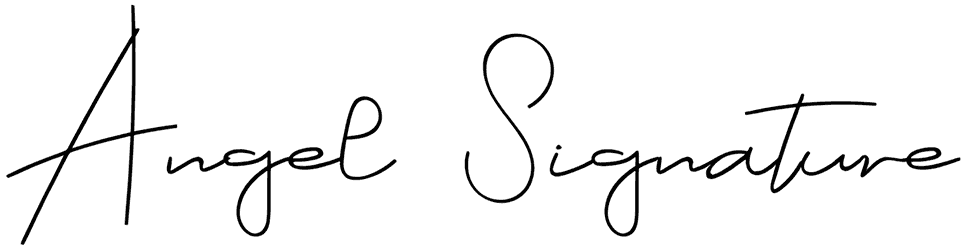
Angel Signature Font
While Angel Signature is a little illegible, it is a handwritten font that you can utilize to an intriguing effect and provide a more fun look and feel to your digital creations.
The clean, natural look of the script font makes it a worthy complement to any presentation, whether it be a sign, a poster, the header of a website, or a greeting card. Try it out and see if you can come up with anything endearing, interesting, or fascinating.